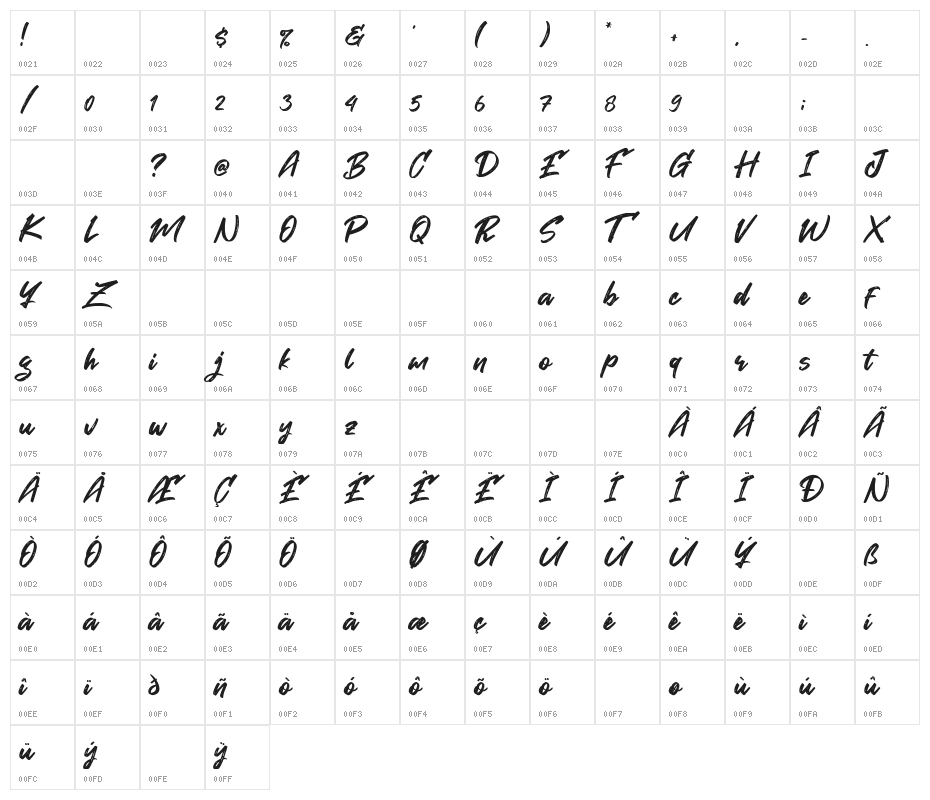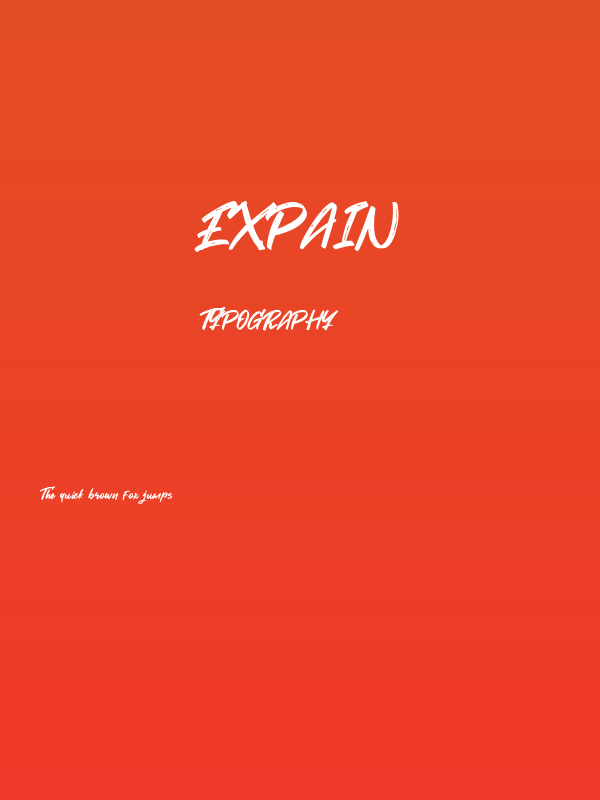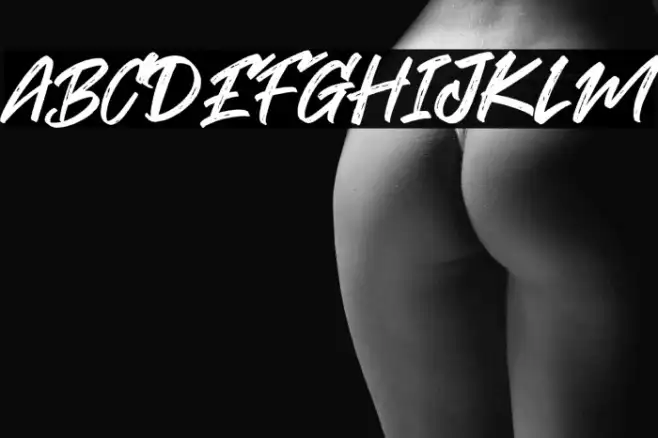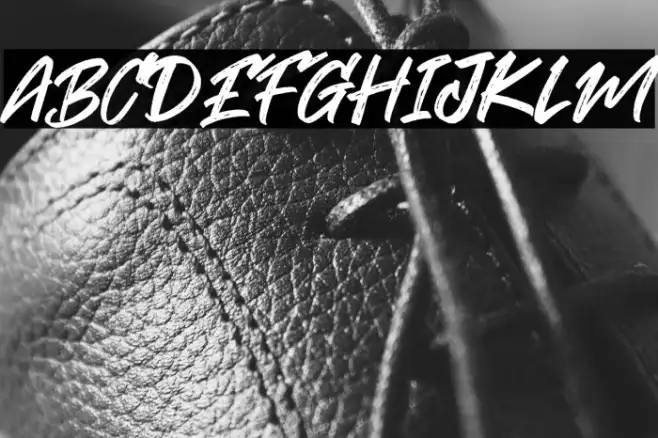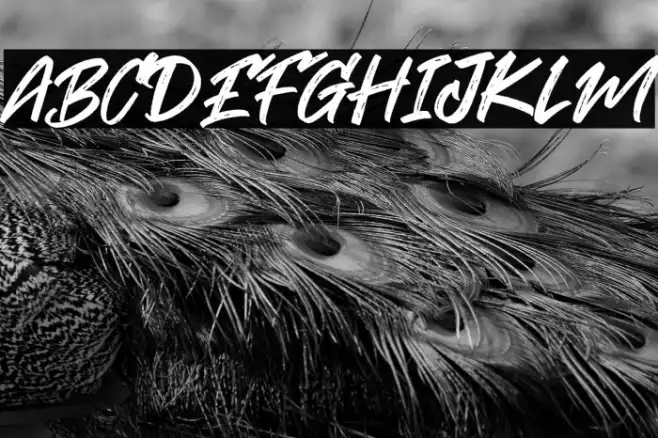
Expain Font
Expain Description
This font features a bold, expressive style with a handwritten appearance. The strokes are thick and dynamic, giving it a lively and energetic feel. Each character is crafted with a sense of motion, as if written with a brush or marker. The uppercase and lowercase letters maintain a consistent style, with some letters featuring unique flourishes that enhance its artistic appeal. The numbers and special characters are equally bold and maintain the same expressive quality. This font is ideal for projects that require a personal touch or a sense of creativity.
| Proposed Projects | Ideal for branding, posters, invitations, and creative projects that require a personal touch. |